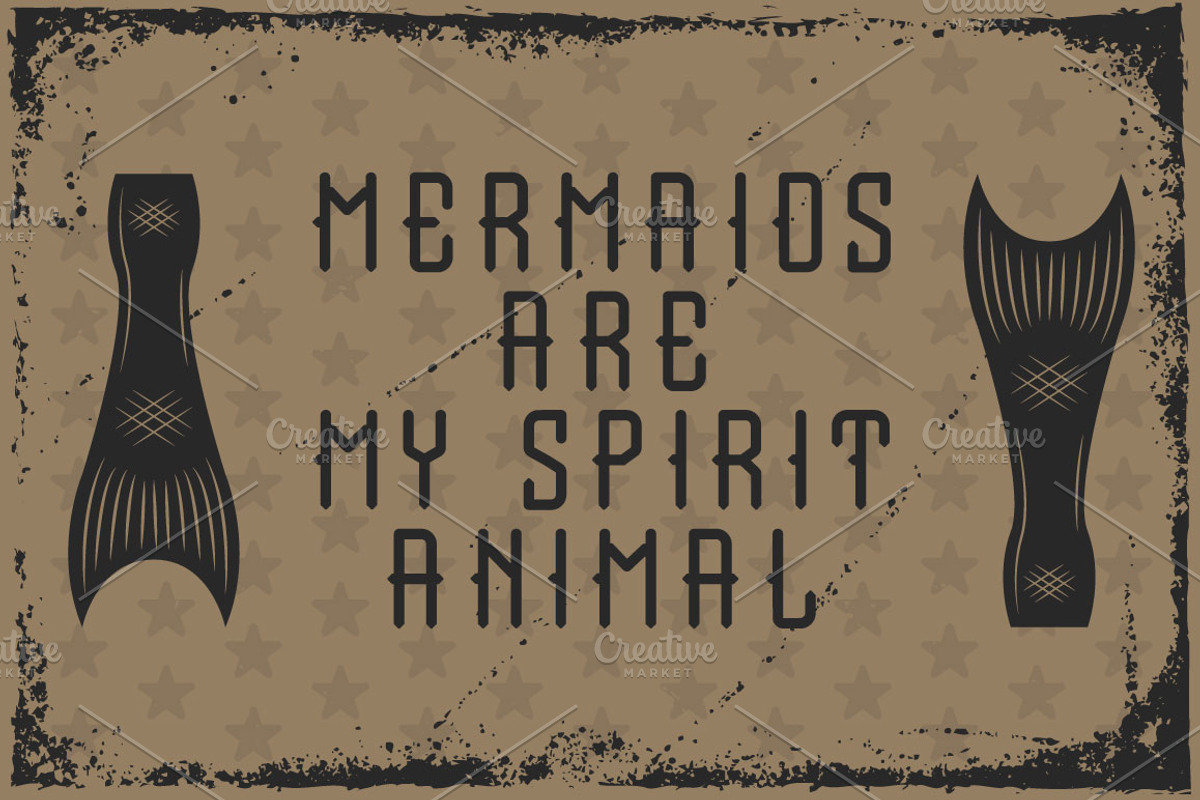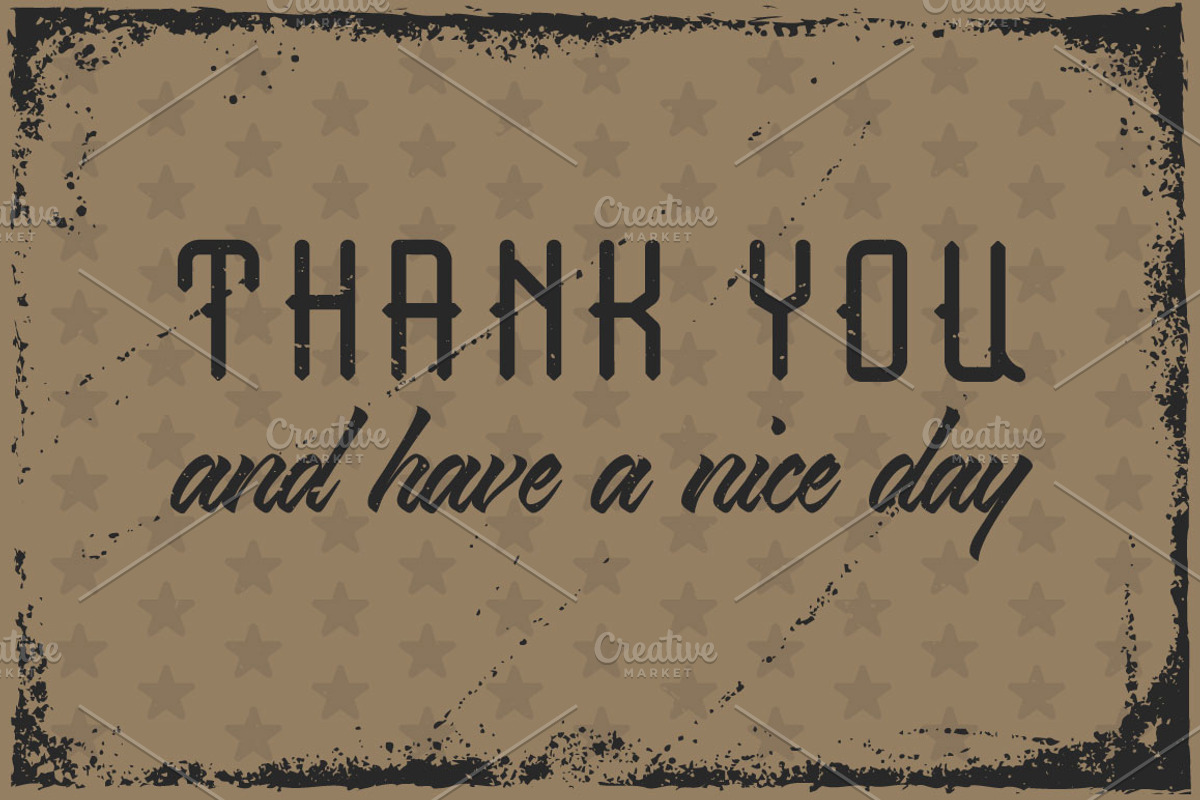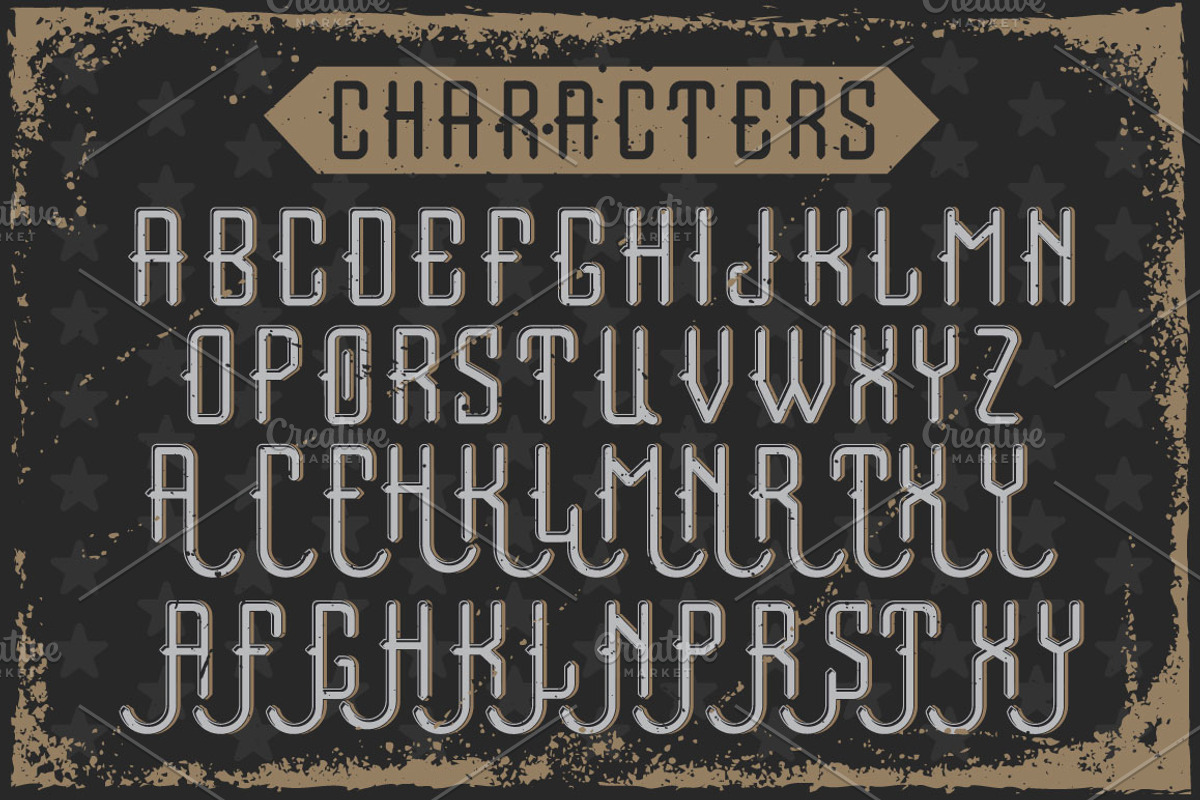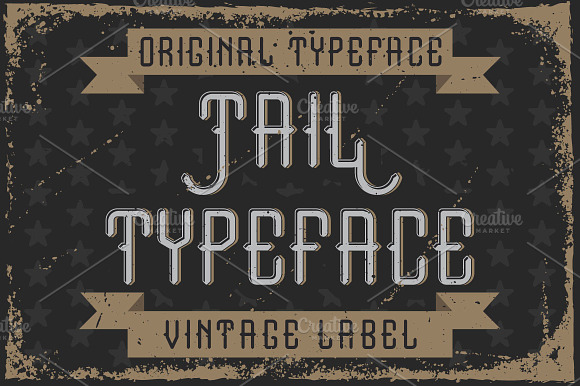
Handcrafted font "Tail"
Introducing a vintage label typeface called "Tail". It's made in strong and vintage label style. Typeface looks great on any label designs and t-shirts.
5 fonts in complect with special effects
You can mix color of base font, light and shadow effect
Why Handcrafted font "Tail" is worth a look
Handcrafted font "Tail" by Heatherinsane fits naturally into Branding, posters, packaging, typography.